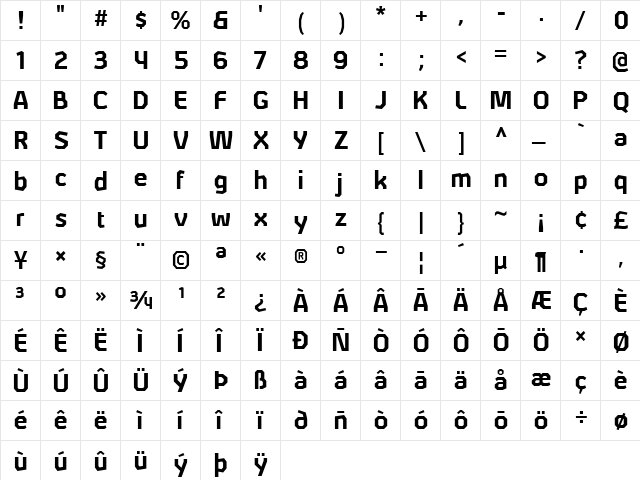
Alphii Bold
Design Context for Alphii Typeface
Alphii takes a measured approach to typography — its balanced proportions and neutral character make it a reliable workhorse for both digital and print work. The heavy weight commands attention and anchors typographic hierarchies.